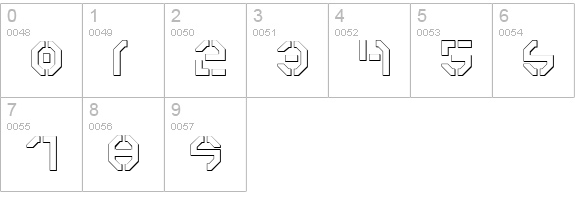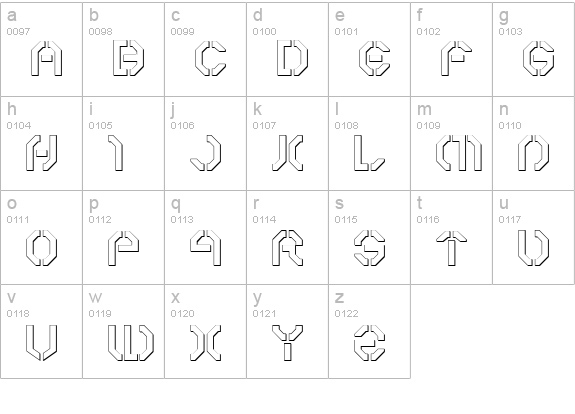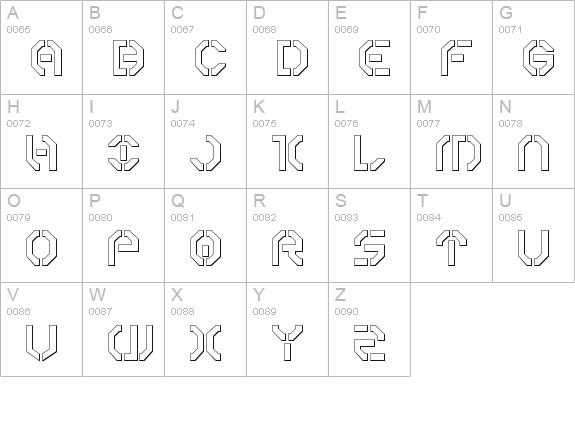
Introducing Year 3000 Outline font - a futuristic and sleek typeface that embodies the essence of innovation and technology. This cutting-edge font features clean lines and sharp edges, perfect for projects that require a modern touch. The Year 3000 Outline font exudes a sense of sophistication and forward-thinking design, making it ideal for branding, logos, posters, and more. What's even better is that Year 3000 Outline font is completely free to download at FontsMarket.com! Yes, you read that right - you can elevate your designs with this stunning font without having to spend a dime. So why wait? Embrace the future of typography with Year 3000 Outline font today and let your creativity soar to new heights.